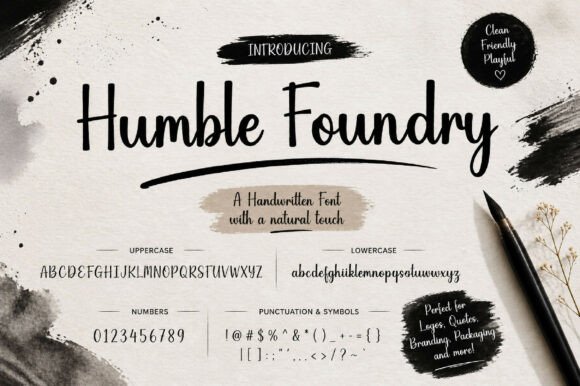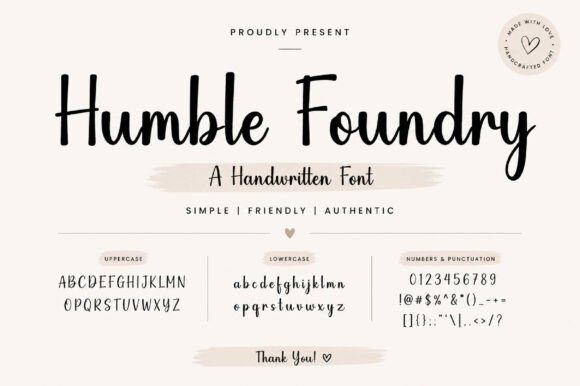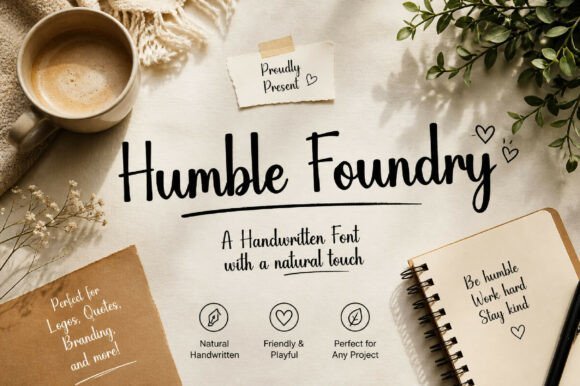
Introduction to Humble Foundry Font
Humble Foundry is a refined handwritten script font designed to bring warmth, elegance, and personality into your designs.
With its tall letterforms, smooth strokes, and natural handwritten flow, this font creates a clean and stylish look that feels both modern and timeless Its graceful script style makes Humble Foundry perfect for projects that need a personal yet professional touch.
Why Choose Humble Foundry Font?
Humble Foundry Font offers exceptional quality and versatility, making it a valuable addition to your design toolkit. Whether you’re creating for personal projects or commercial use, Humble Foundry Font delivers professional results.